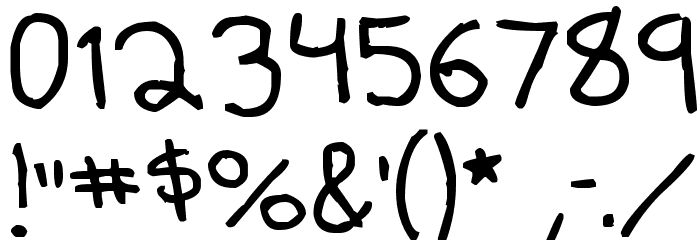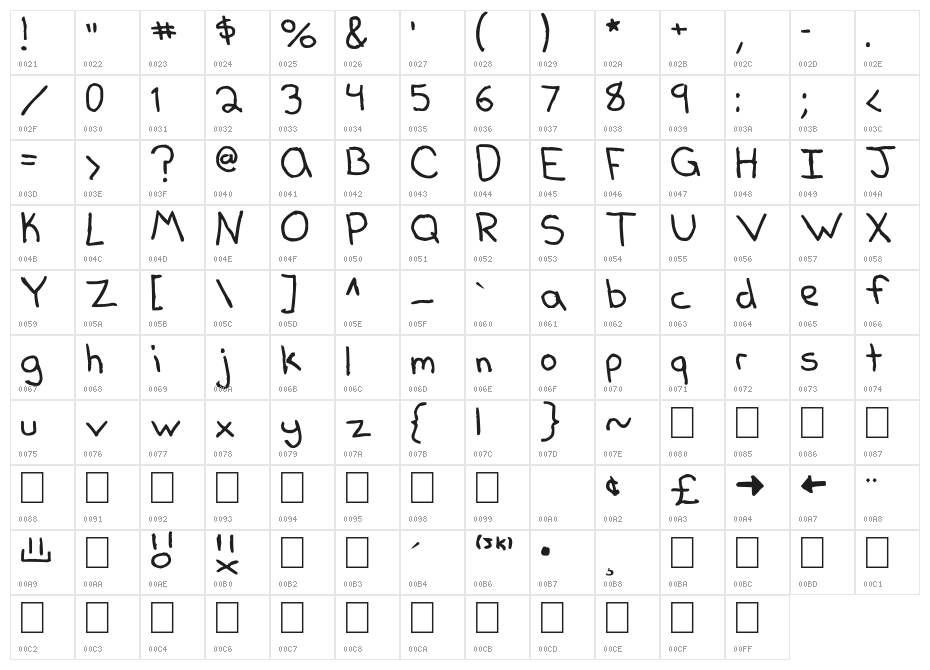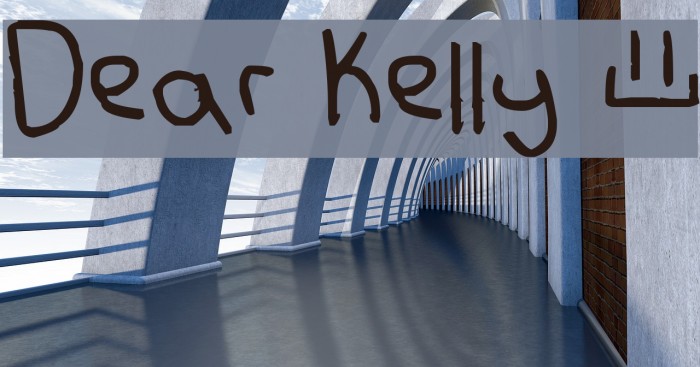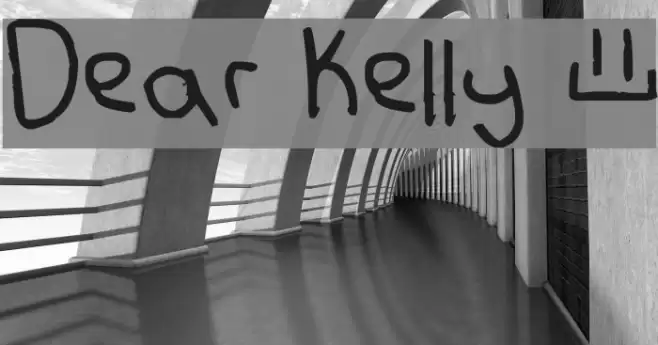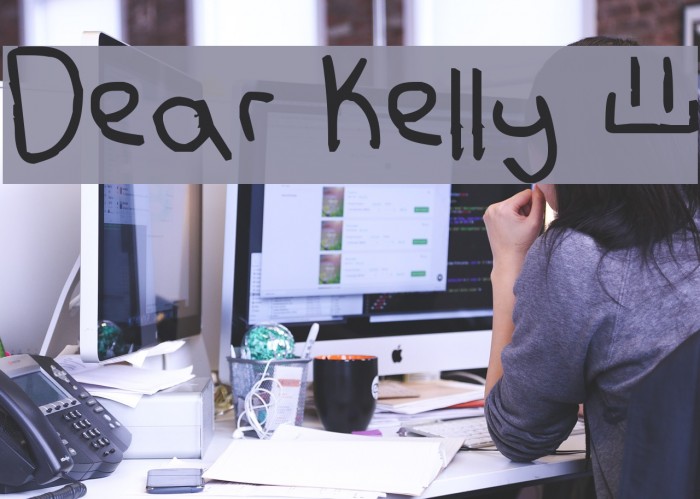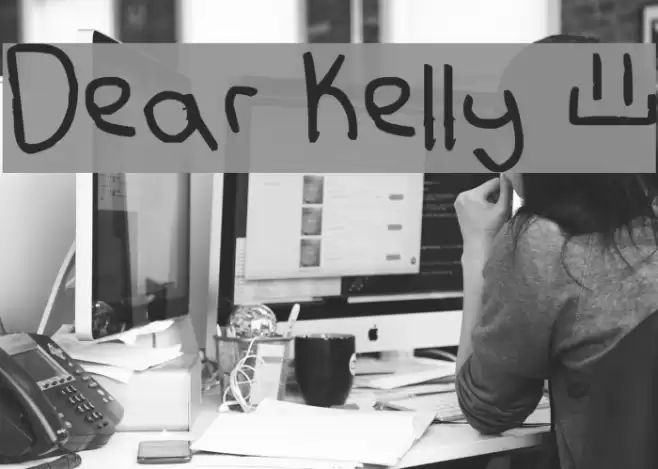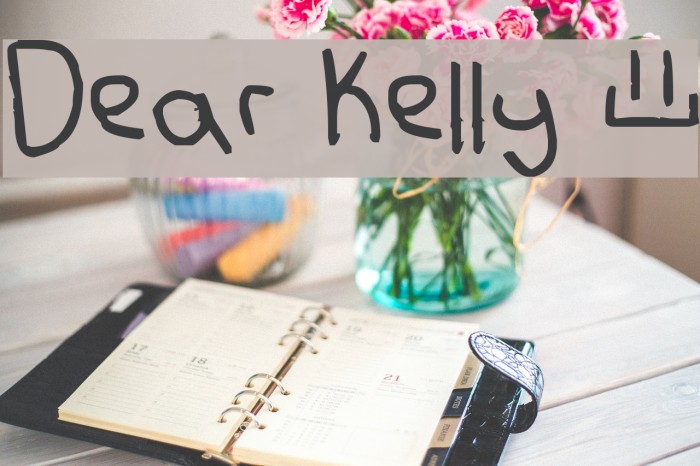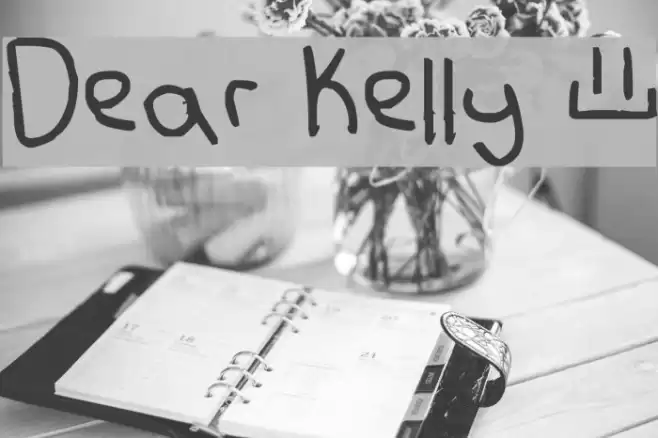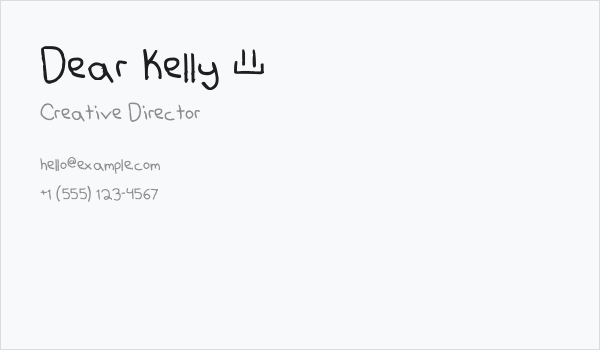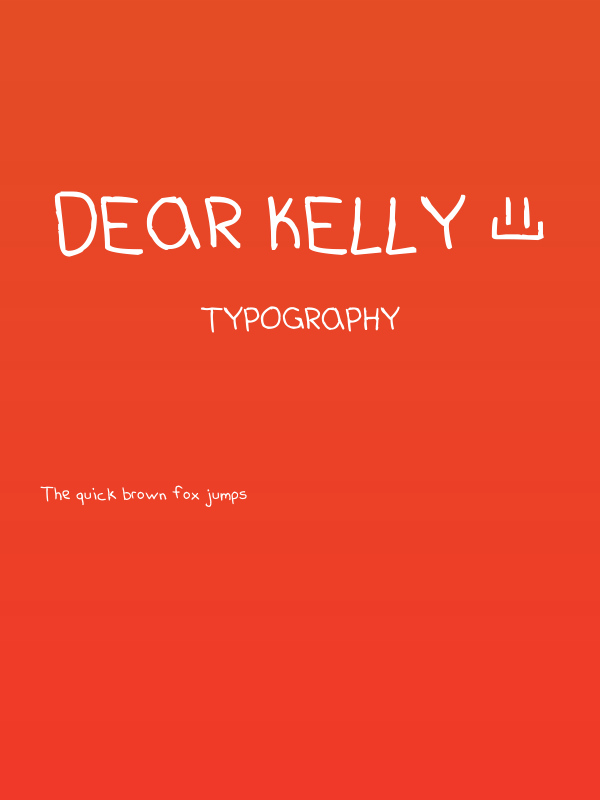
Dear Kelly © Font
Dear Kelly © Description
This font features a playful and informal handwritten style, characterized by its irregular and slightly uneven strokes. The letters have a casual, friendly appearance, with a mix of rounded and angular shapes that give it a unique personality. The uppercase and lowercase letters maintain a consistent style, while the numerals and special characters complement the overall look. This font's organic and spontaneous feel makes it suitable for projects that require a personal touch.
| Use Case | Headlines, Informal text, Personal projects |
| Proposed Projects | Ideal for greeting cards, children's books, personal blogs, and casual branding projects. |